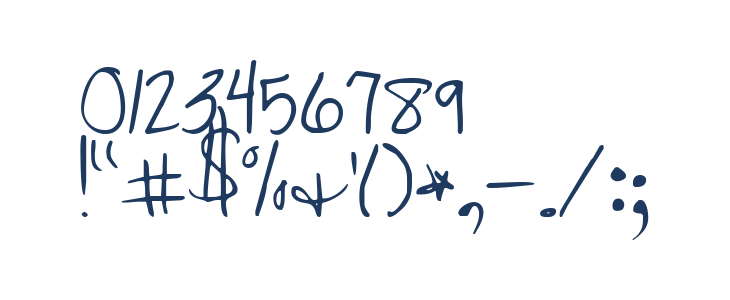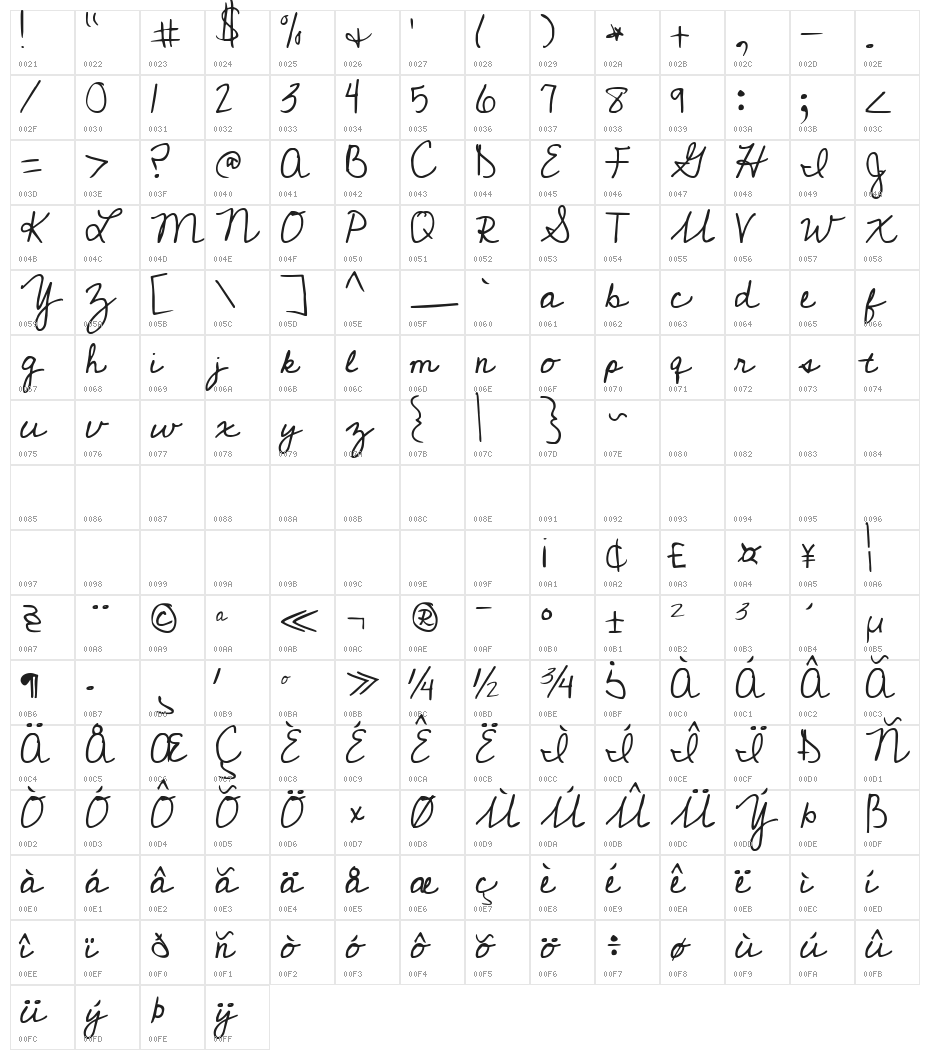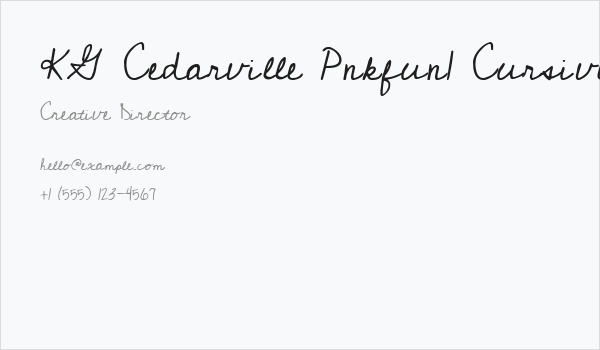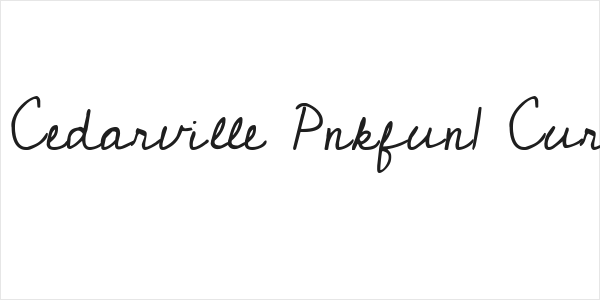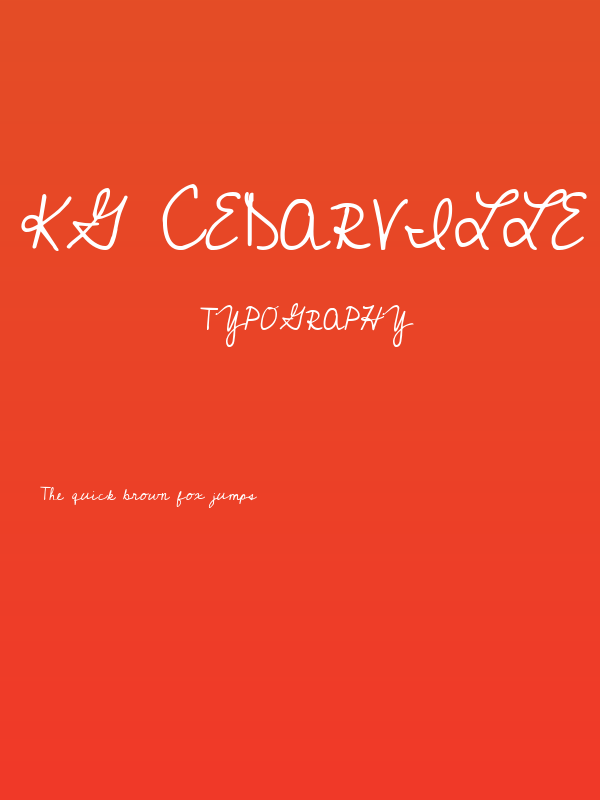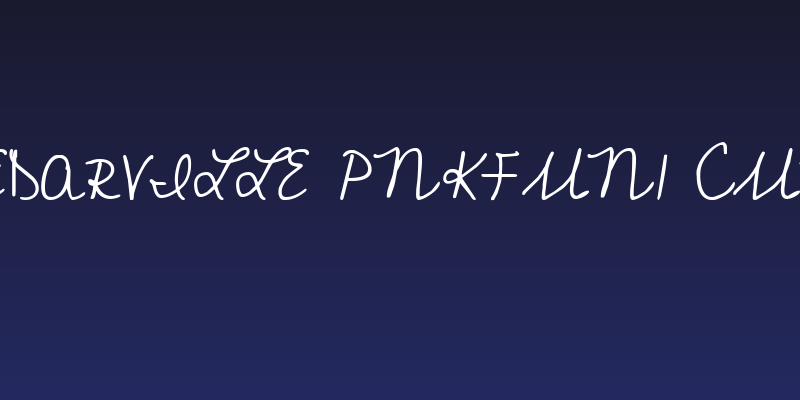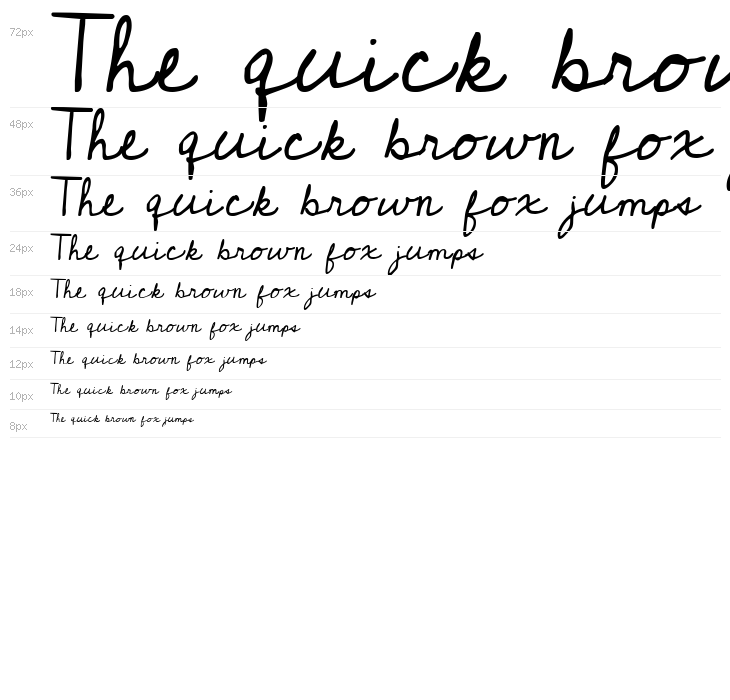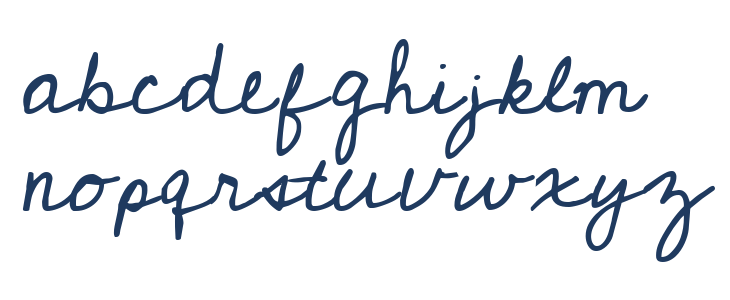
KG Cedarville Pnkfun1 Cursive Font
KG Cedarville Pnkfun1 Cursive Description
This font features a playful and whimsical cursive style, characterized by its fluid and continuous strokes. The uppercase letters exhibit a lively and dynamic form, with unique loops and swirls that add a sense of movement. The lowercase letters maintain a consistent flow, enhancing readability while retaining a charming, handwritten feel. Numbers and special characters are crafted with the same playful spirit, ensuring a cohesive look across all text elements. The overall design is informal yet stylish, making it suitable for creative and casual applications.
Use CaseHeadlines, Logos, Invitations
Proposed ProjectsIdeal for greeting cards, invitations, children's books, and playful branding projects.